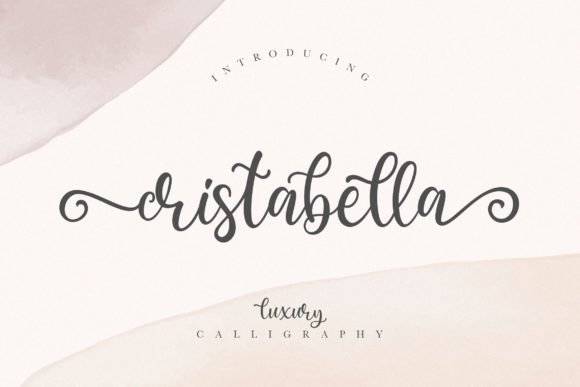
The Art of Creative Expression: Unveiling the Magic of Cristabella Font
There’s something special about holding a pen to paper and watching your ideas come to life. For creatives, this moment is pure magic. Whether you’re a graphic designer, artist, or simply someone who loves to express themselves through words, the process of bringing a concept to reality is truly exhilarating. And, let’s be honest, the right font can make all the difference in elevating your work from good to great.
Enter the enchanting Cristabella Font, a beautifully crafted handwritten font designed to add a touch of elegance to any project. Whether you’re creating a stunning visual for Instagram or crafting a custom invitation for a special occasion, this font is sure to inspire. With its PUA encoding, accessing all the glyphs and swashes is a breeze, making it a valuable asset for designers looking to add a personal touch to their work.
Cristabella Font Key Features
- Unique Characteristics: Elegant, cursive script with refined flourishes and subtle texture, ideal for formal invitations, wedding stationery, and luxury branding
- Font Style: Script, cursive
Cristabella Font Review
I recently had the chance to work with the Cristabella font, and here’s my honest review.
The Cristabella font has a beautiful, elegant feel to it. It’s perfect for creating a sophisticated and high-end look in your designs. I particularly love the way the letters flow together, creating a sense of smoothness and cohesion. It’s also a great choice for titles and headings, as it adds a touch of luxury and refinement.
- Beautiful, elegant feel
- Smooth letter flow
- Perfect for high-end designs
- Great for titles and headings
While the Cristabella font is great for certain designs, it may not be the best choice for every project. One of the main limitations is that it’s a bit too formal and elegant for casual or playful designs. Additionally, it may not be as readable at smaller font sizes, which could be a problem if you need to use it for body text.
- Too formal for casual designs
- Not suitable for body text at smaller font sizes
Overall, I think the Cristabella font is a great choice for designers who want to create a sophisticated and high-end look in their designs. While it may have some limitations, it’s definitely a versatile font that can be used in a variety of contexts. Just be sure to use it judiciously and pair it with other fonts that complement its elegant feel.
The Cristabella Font is ideal for use in invitations, wedding stationery, and other feminine designs. To get the most out of it, try combining it with floral patterns and soft colors. Experiment with different font sizes and styles to create a unique and eye-catching design.